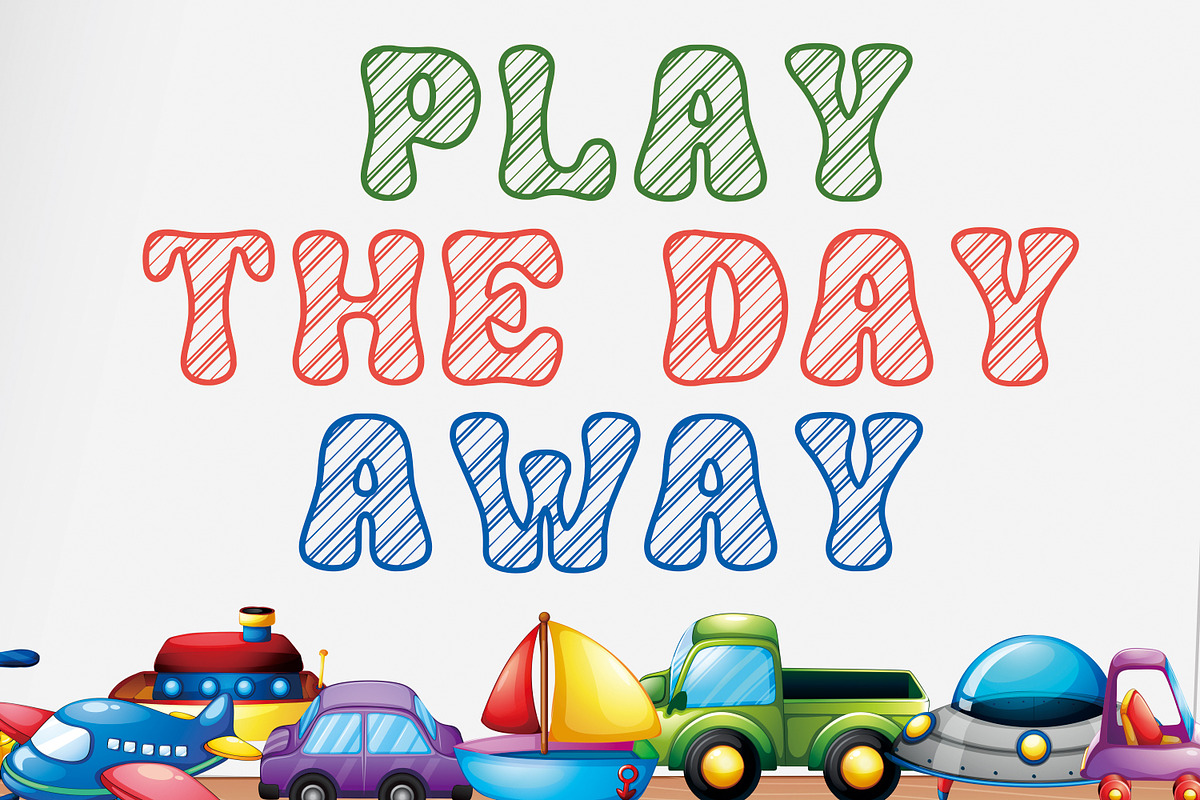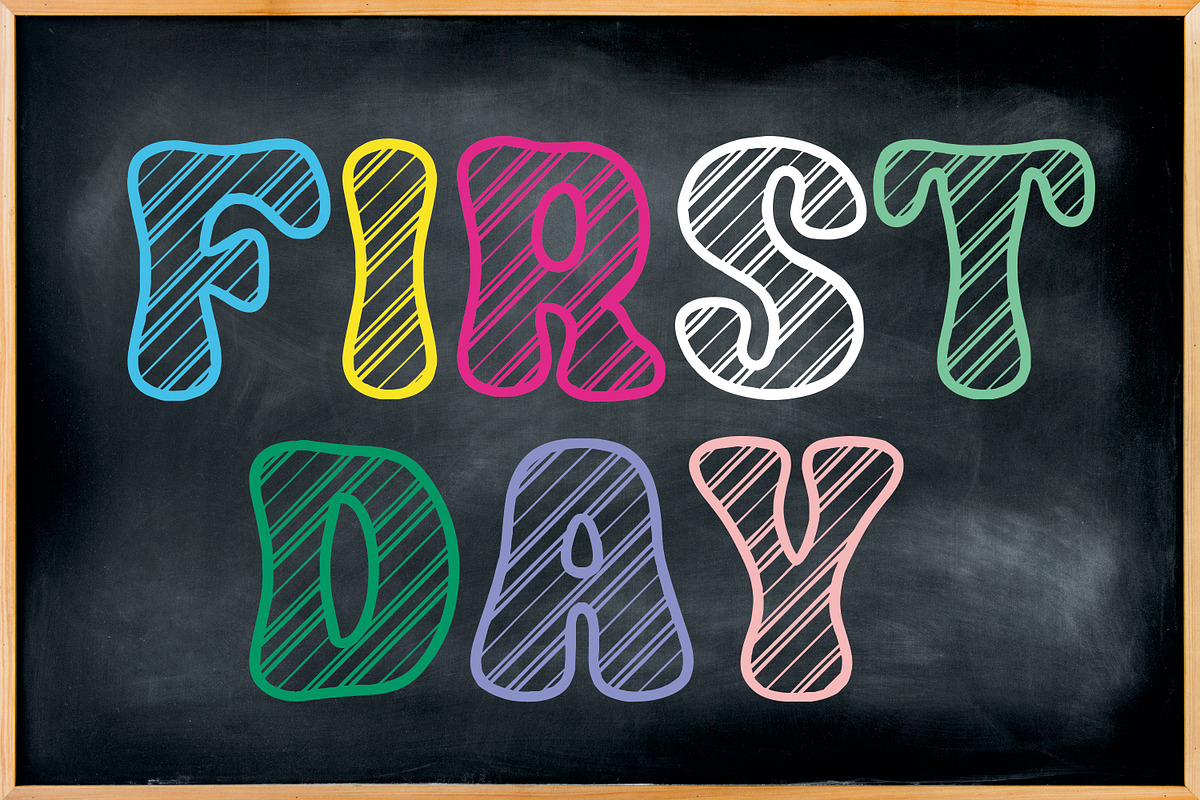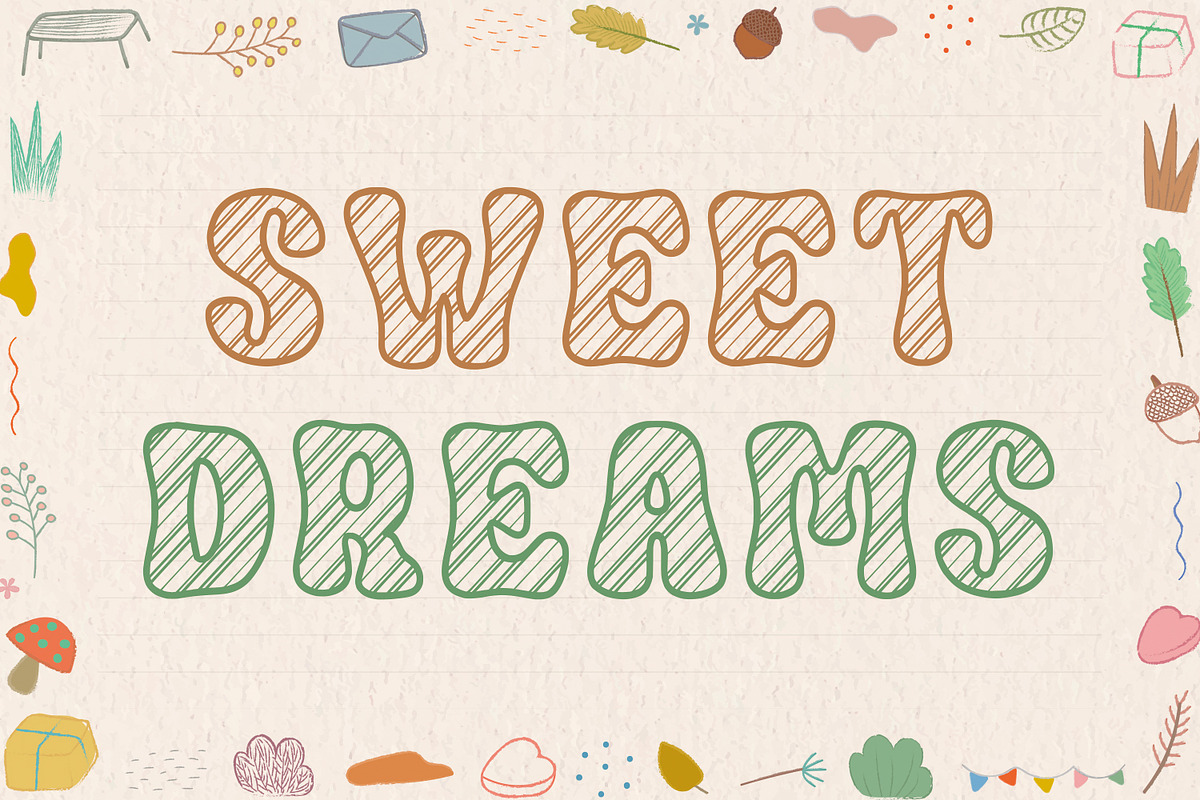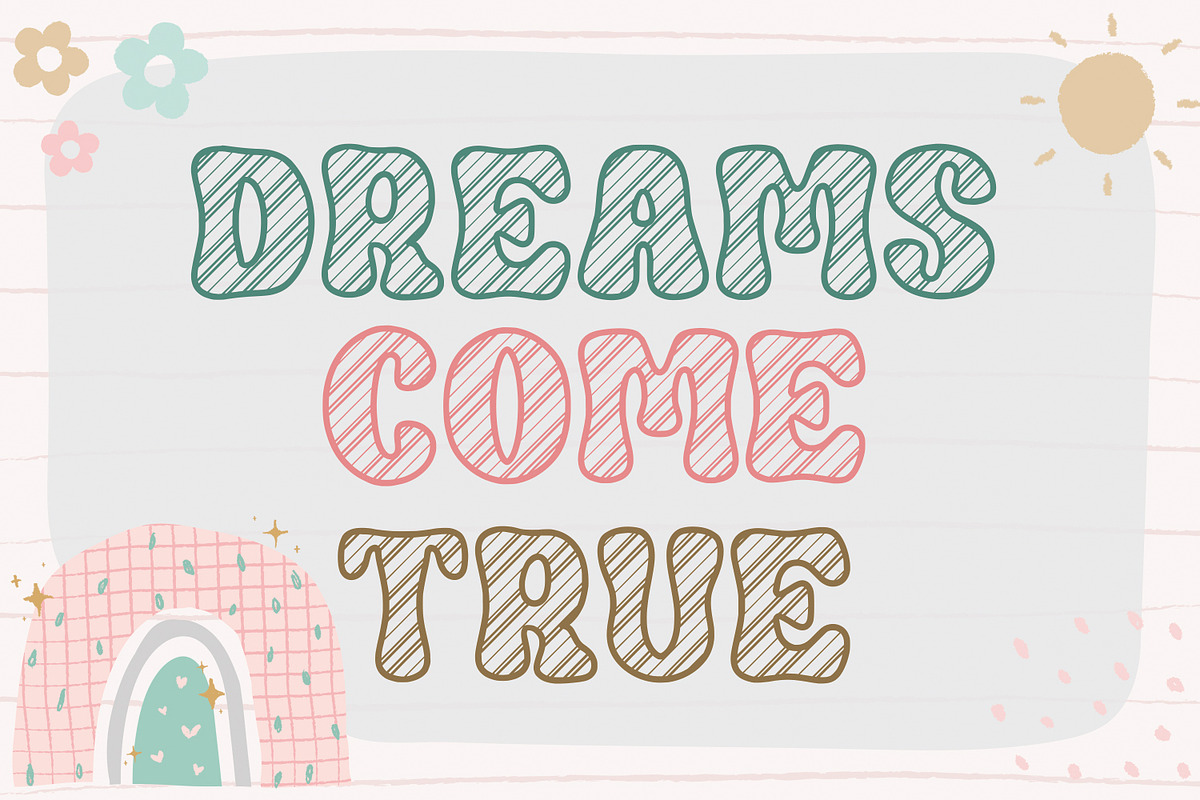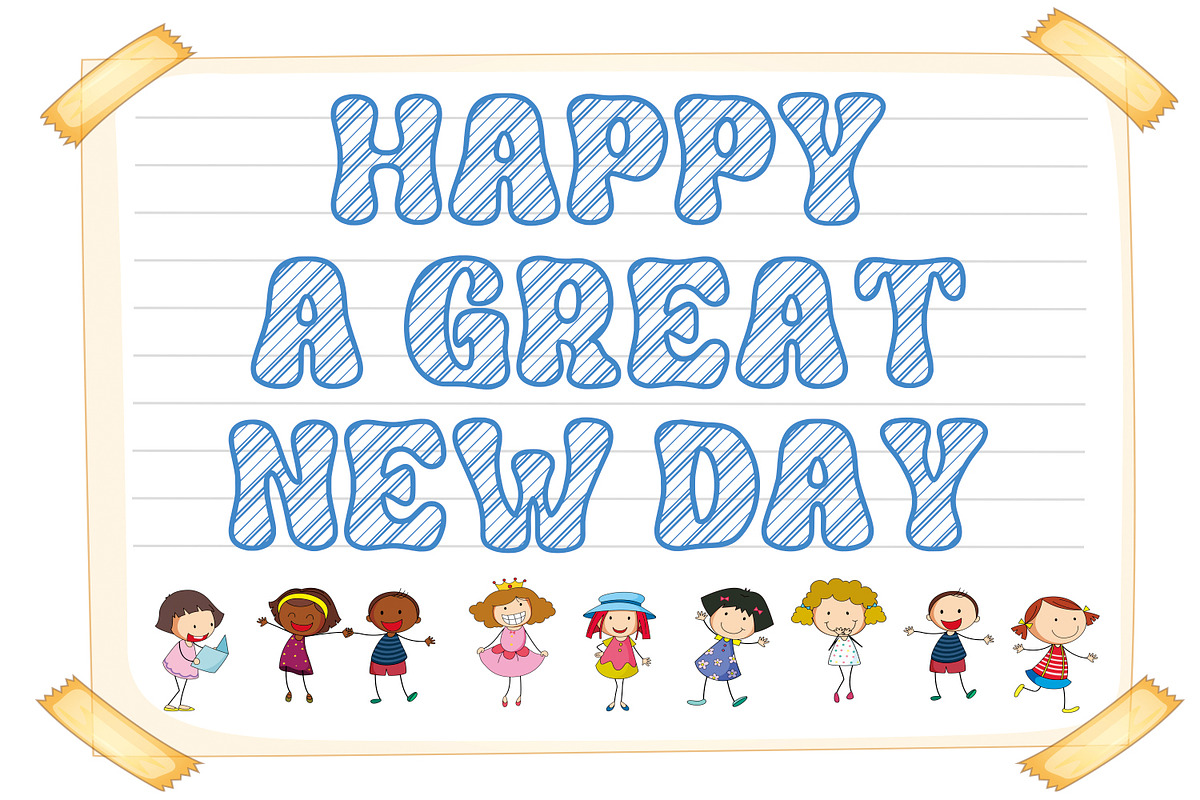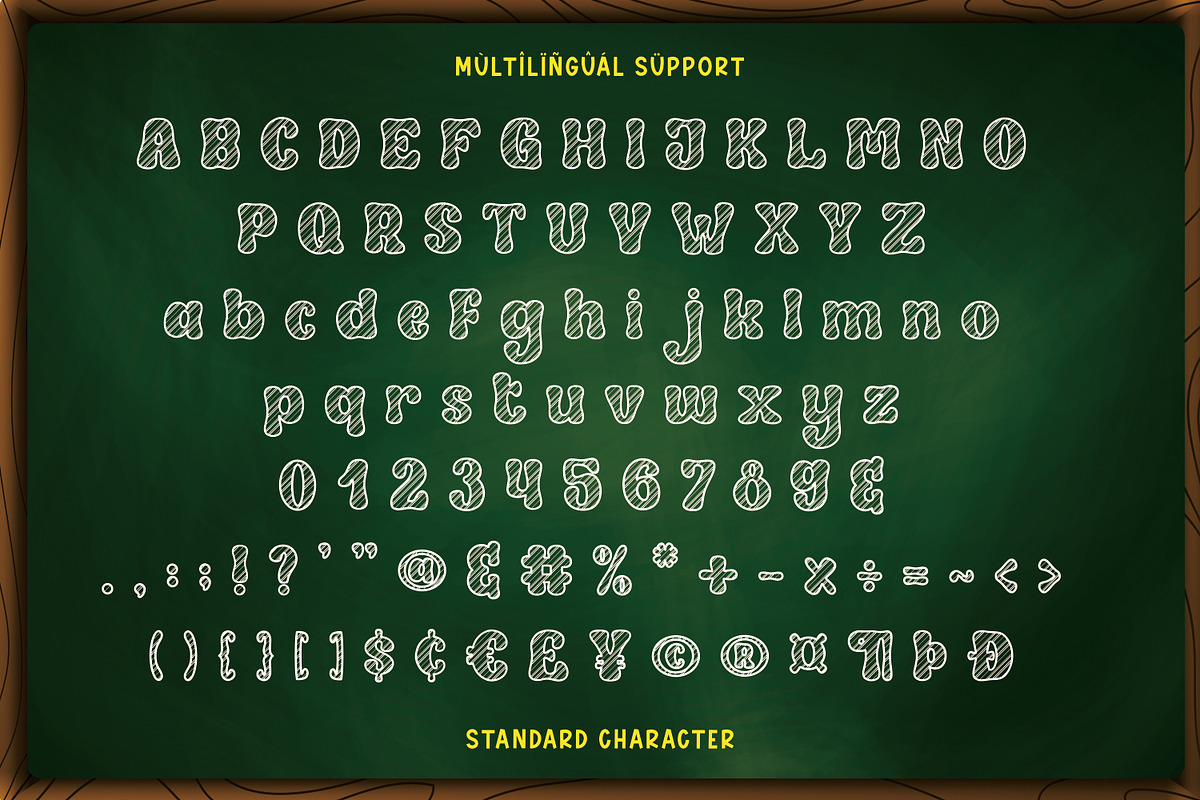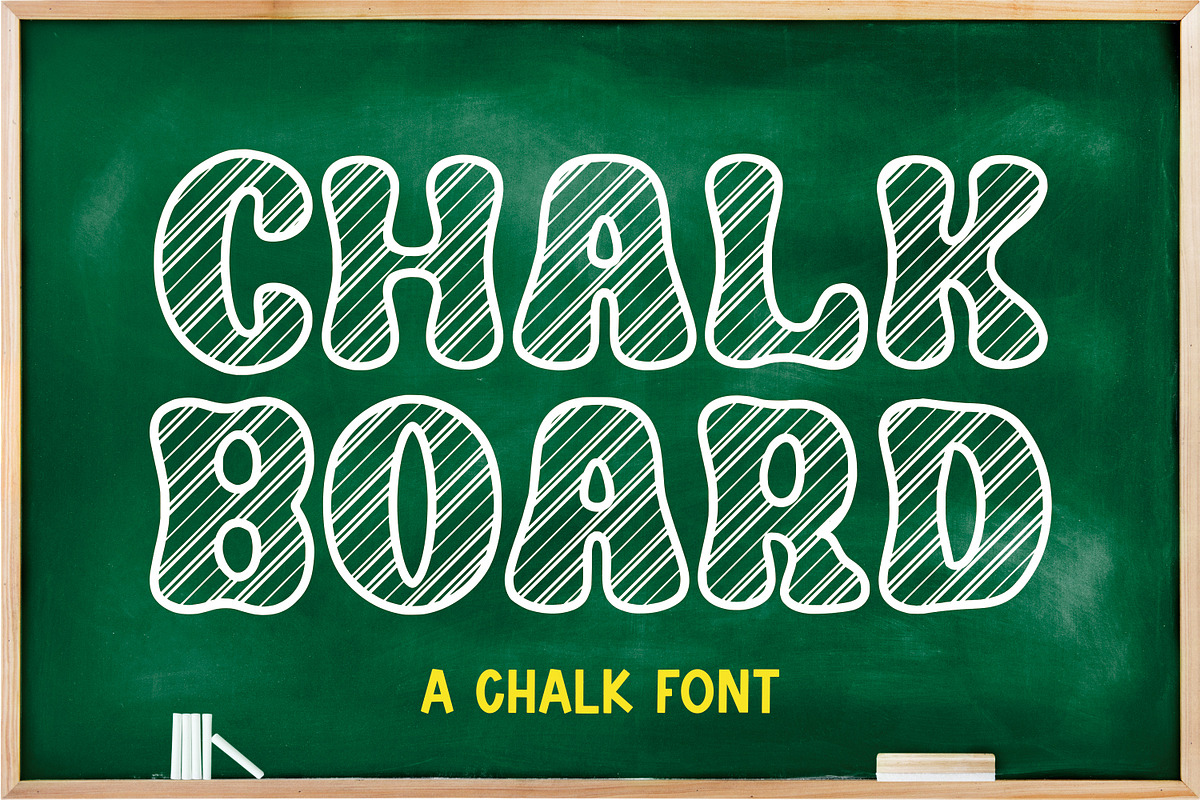
CHALKBOARD
Introducing CHALKBOARD font - the perfect blend of playful charm and nostalgic elegance, tailor-made for all your school-themed projects, from crafting heartfelt Mother's Day cards to adorning your classroom decor. This delightful display font captures the essence of childhood whimsy, with its adorable handwritten style reminiscent of chalkboard doodles.
With its versatile appeal, CHALKBOARD font is an ideal choice for bringing back-to-school excitement to life, adding a touch of youthful flair to your crafts, embroidery, greeting cards, and decorations. Let your creativity flourish as you infuse your designs with the warmth and innocence of childhood memories.
Embrace the joy of learning and creativity with CHALKBOARD font today! Get ready to inspire and delight with every stroke of the chalk. Let's make every project an unforgettable celebration of education and imagination.